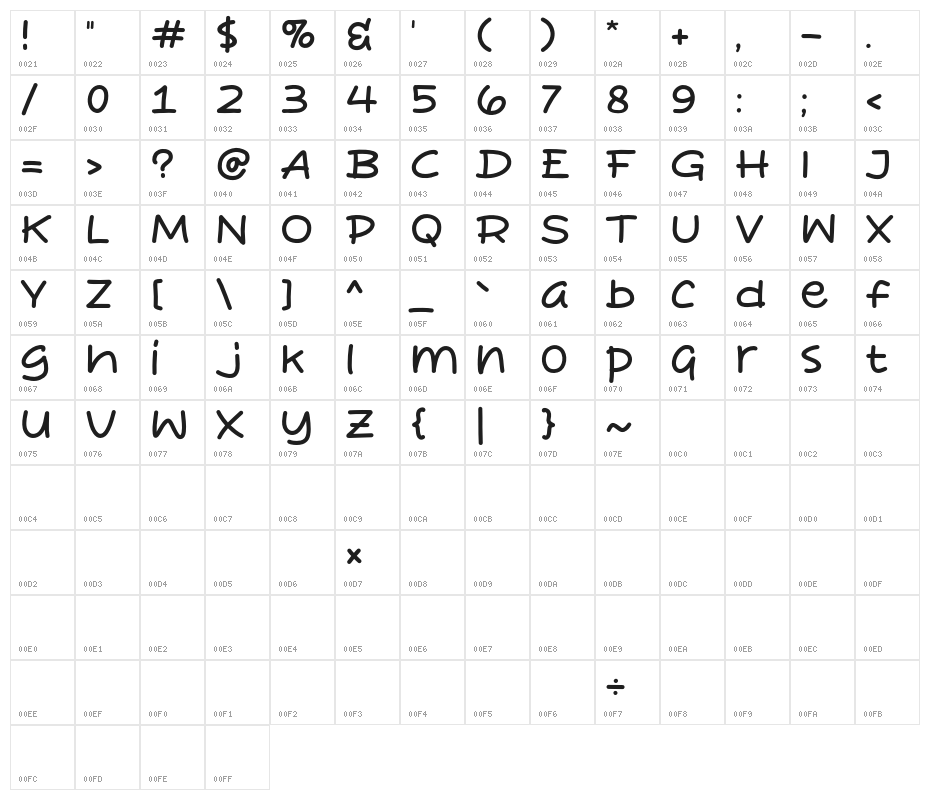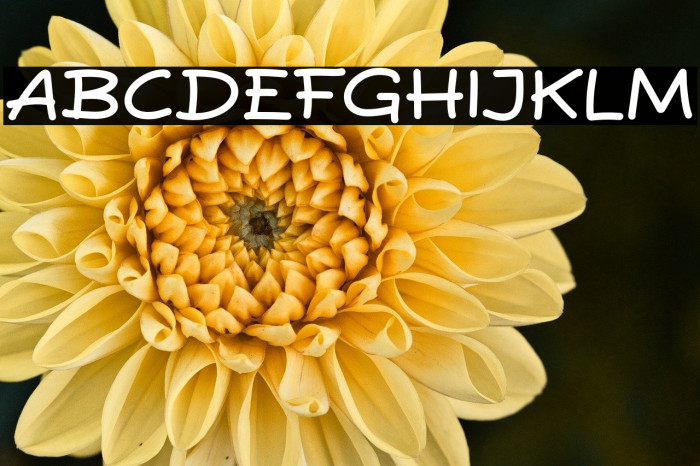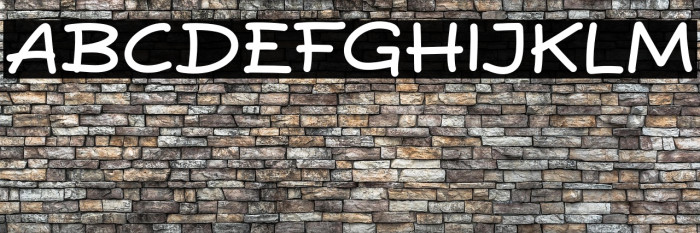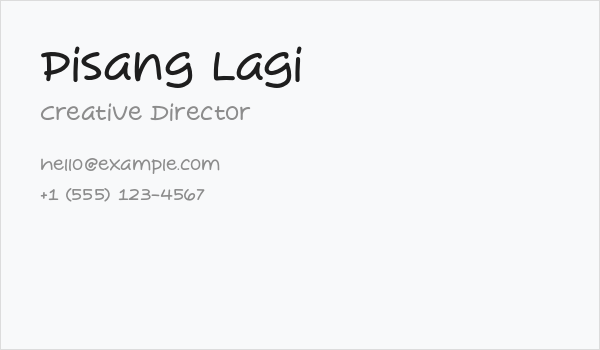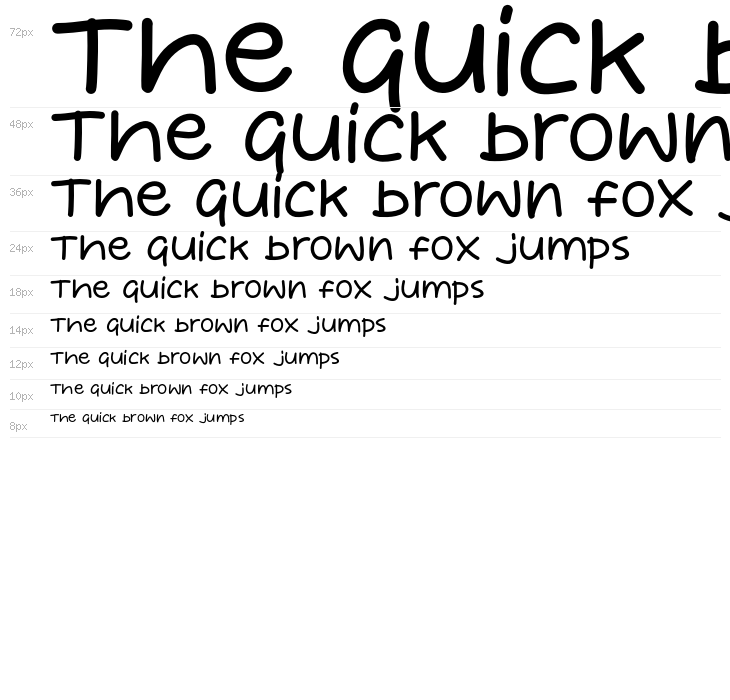
Pisang Lagi Font
Pisang Lagi Description
This font features a playful and casual handwritten style, characterized by its rounded and slightly irregular letterforms. The strokes are consistent in thickness, giving it a uniform appearance while maintaining a friendly and approachable vibe. The uppercase and lowercase letters are well-proportioned, with a slight slant that adds to its informal charm. The numerals and special characters are designed to match the overall aesthetic, ensuring a cohesive look across all text. This font is perfect for projects that require a personal touch, such as invitations, greeting cards, or children's book illustrations.
| Use Case | Headlines, Informal text, Personal projects |
| Proposed Projects | Ideal for invitations, greeting cards, children's books, and personal branding. |